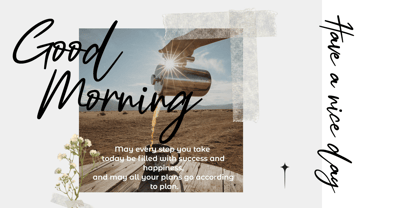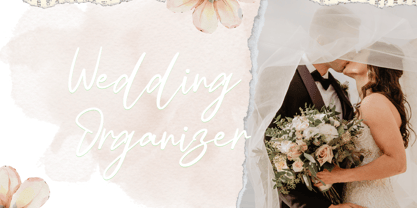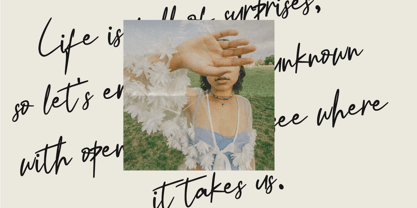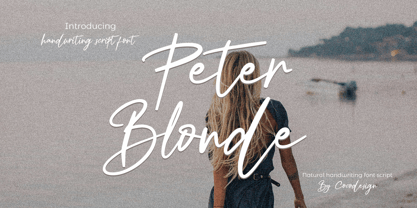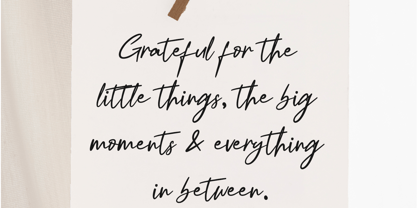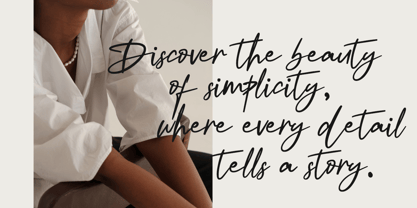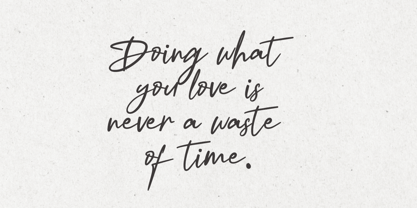
Peter Blonde
by Cocodesign
The Peter Blonde Font Family was designed by Muhammad Zaini and published by Cocodesign. Peter Blonde contains 1 styles. More about this family
Introducing Peter Blonde, a fluid and natural handwritten font that resembles everyday handwriting while maintaining a refined aesthetic quality. Simple yet elegant, Peter Blonde is a great choice for a variety of creative tools.